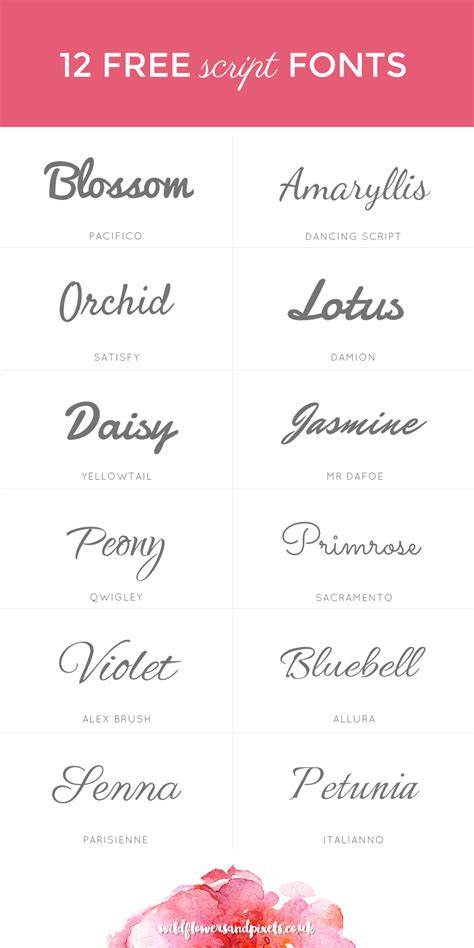
Pretty Script Fonts: The Best Free Fonts For 2023
Introduction
Are you looking for the perfect font for your project? Are you tired of the same old boring fonts? If so, then you’ve come to the right place. Script fonts can give your project a unique, elegant touch. They’re perfect for invitations, business cards, website designs, and more. Script fonts are also great for adding a personal touch to your designs. The best part? There are tons of free script fonts out there! In this article, we’ll look at the best free script fonts for 2023.
What Are Script Fonts?
Script fonts are a type of font that mimic the look of handwritten or cursive lettering. Script fonts come in a variety of styles, ranging from formal to casual. Script fonts are often used to add a personal touch to designs. They’re perfect for invitations, business cards, website designs, and more. Script fonts can also be used for creating logos, titles, and other text elements.
The Best Free Script Fonts for 2023
Now that you know where to find free script fonts, let’s take a look at the best free script fonts for 2023. The first font on our list is Poppins. Poppins is a modern, sans-serif font with a script-like feel. It’s perfect for creating logos, titles, and other text elements. The next font on our list is Montserrat. Montserrat is a modern, sans-serif font with a script-like feel. It’s perfect for creating logos, titles, and other text elements. The last font on our list is Indie Flower. Indie Flower is a modern, script font with a hand-written feel. It’s perfect for creating logos, titles, and other text elements.
Script fonts can give your project a unique, elegant touch. They’re perfect for invitations, business cards, website designs, and more. There are tons of free script fonts out there, and we’ve listed some of the best for 2023. Now that you know where to find free script fonts, you’ll be able to find the perfect font for your project. So, go ahead and start exploring!